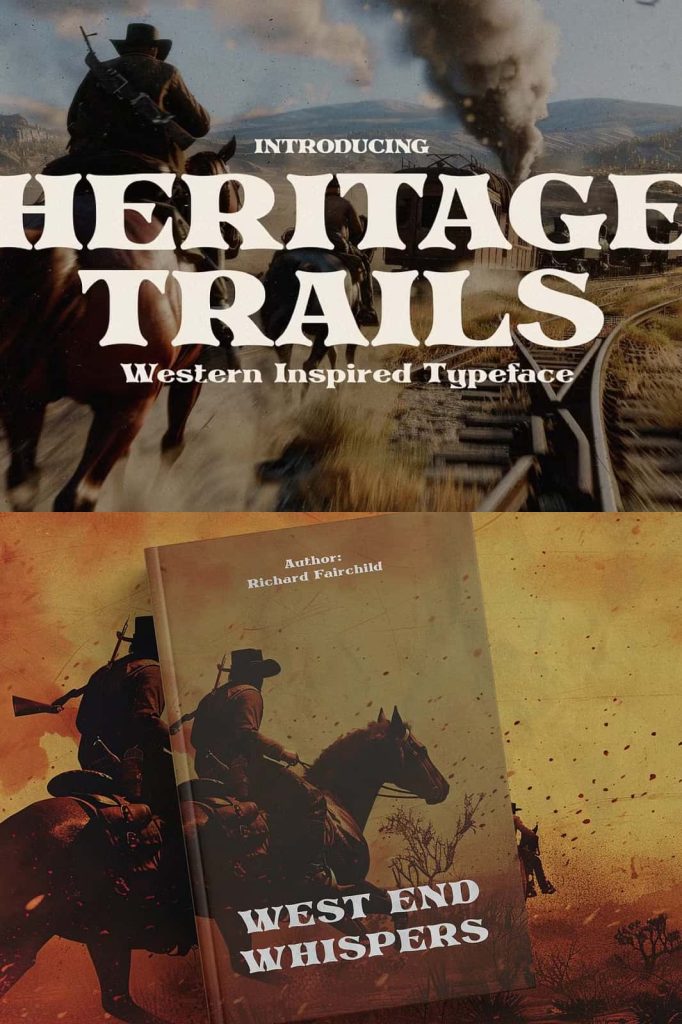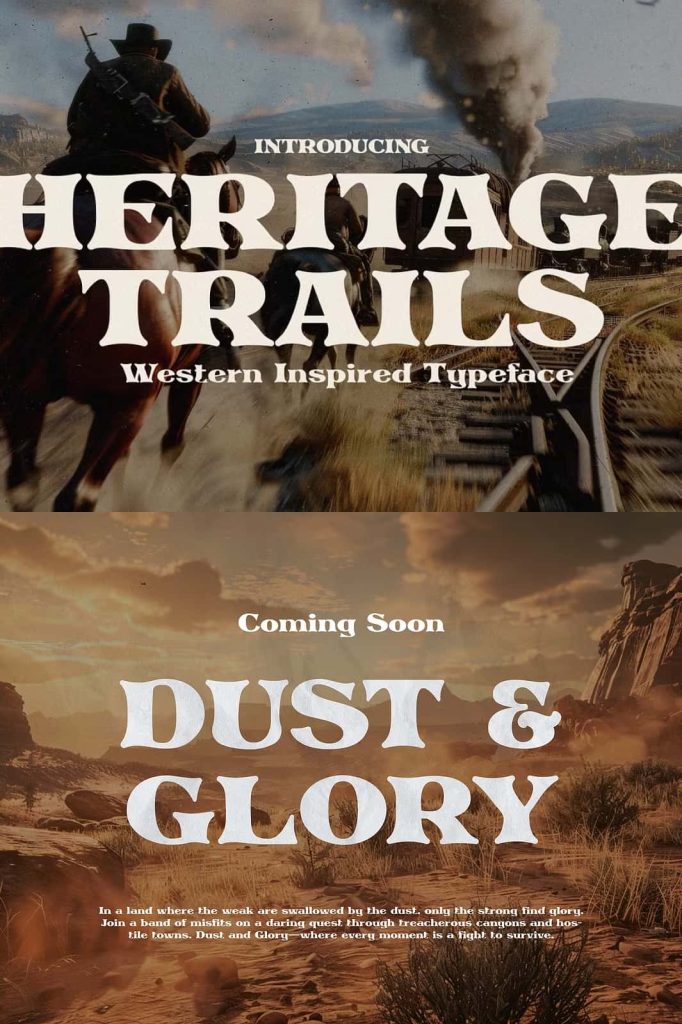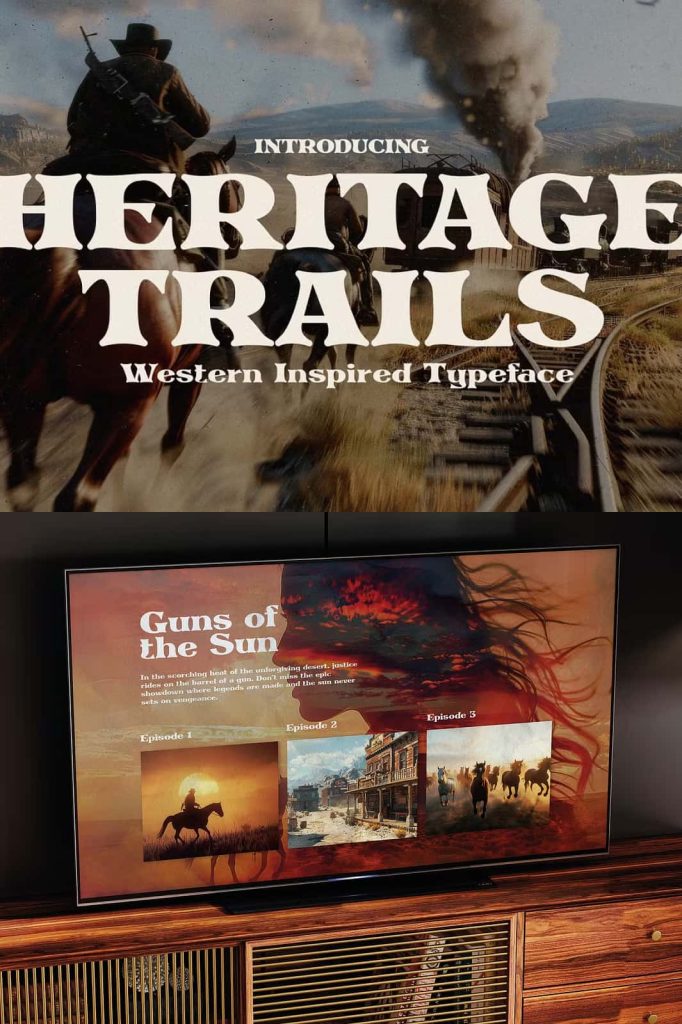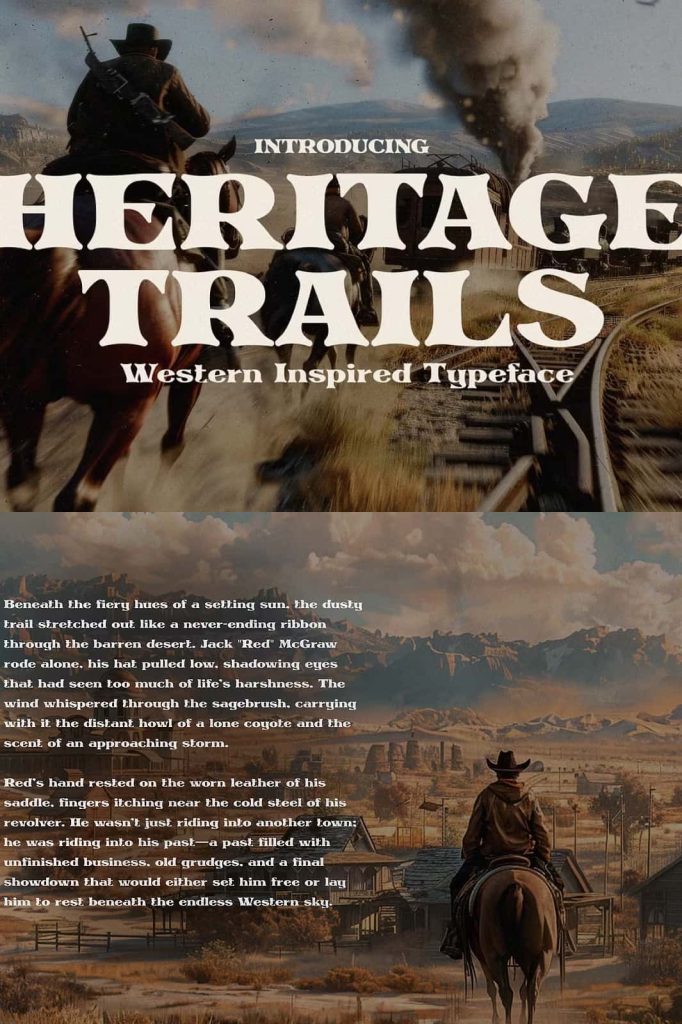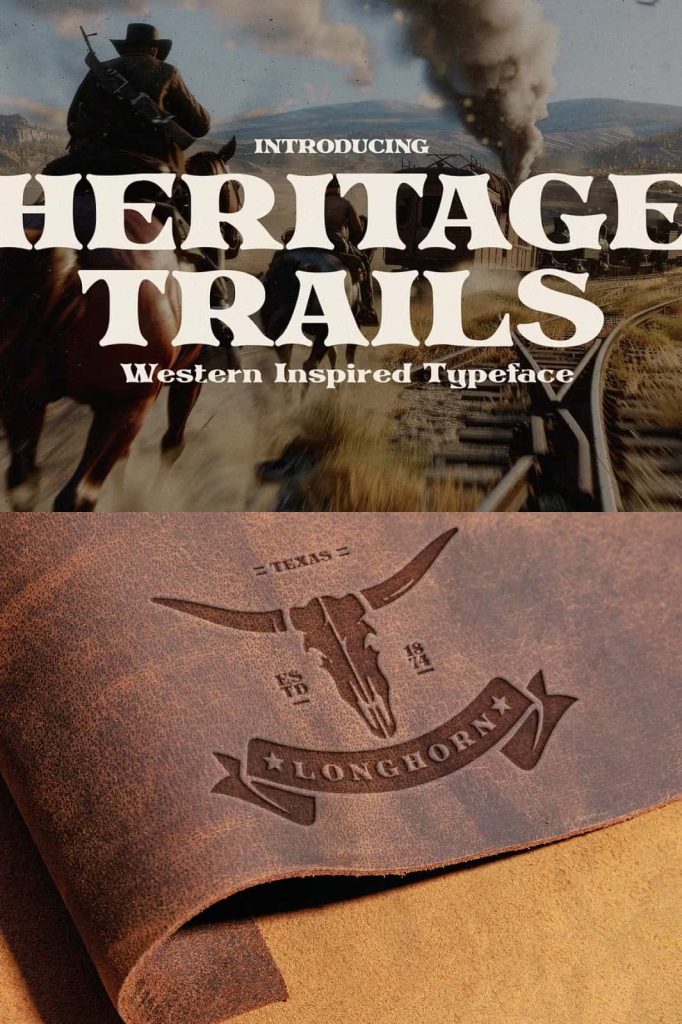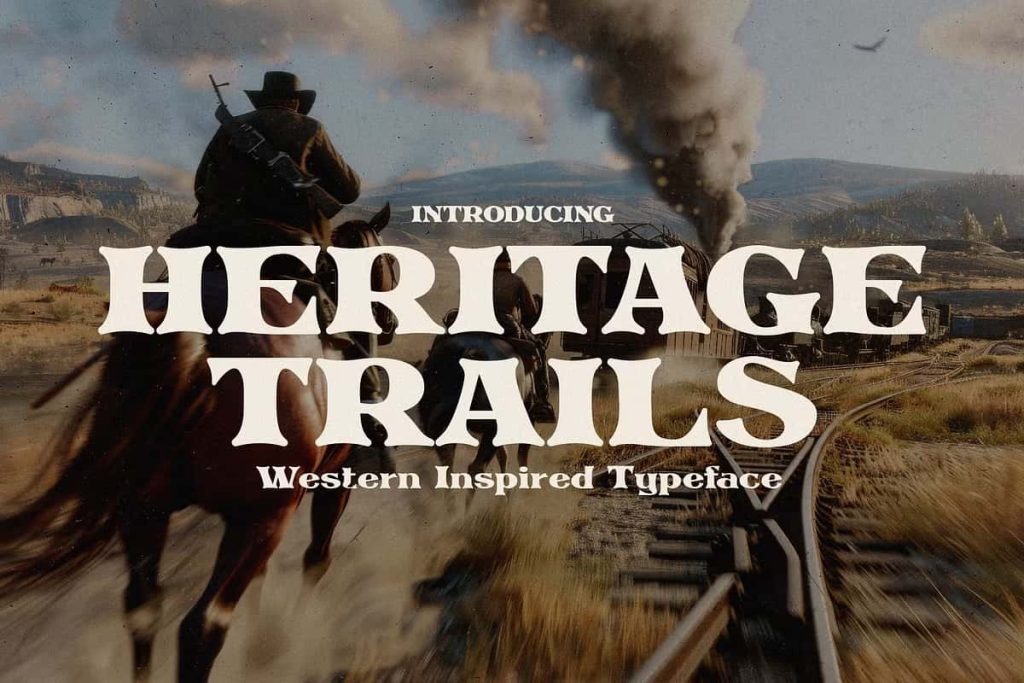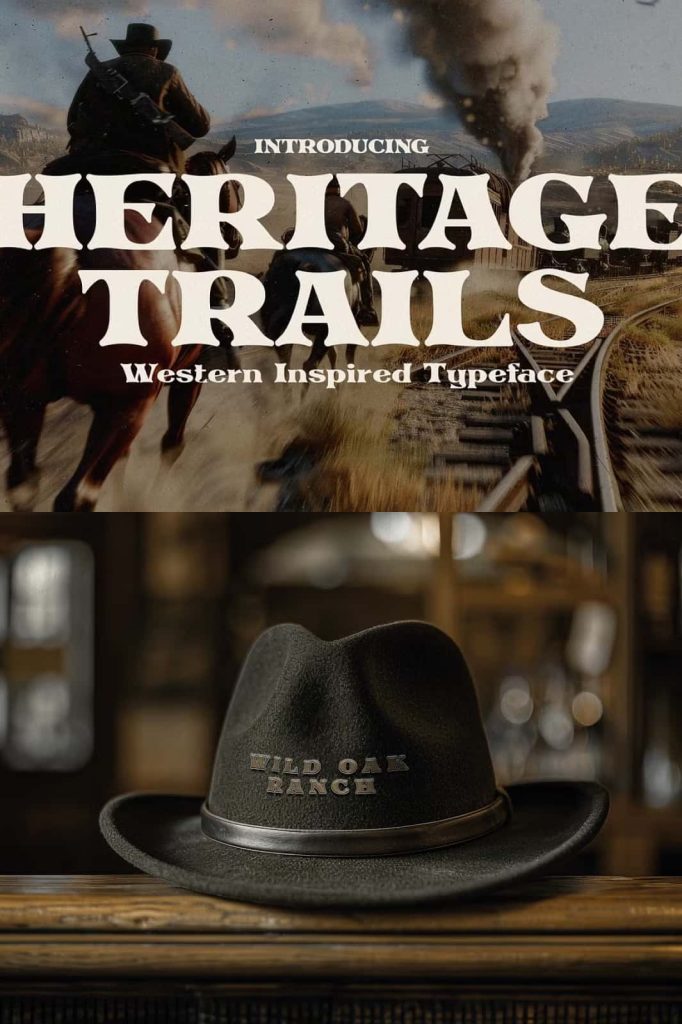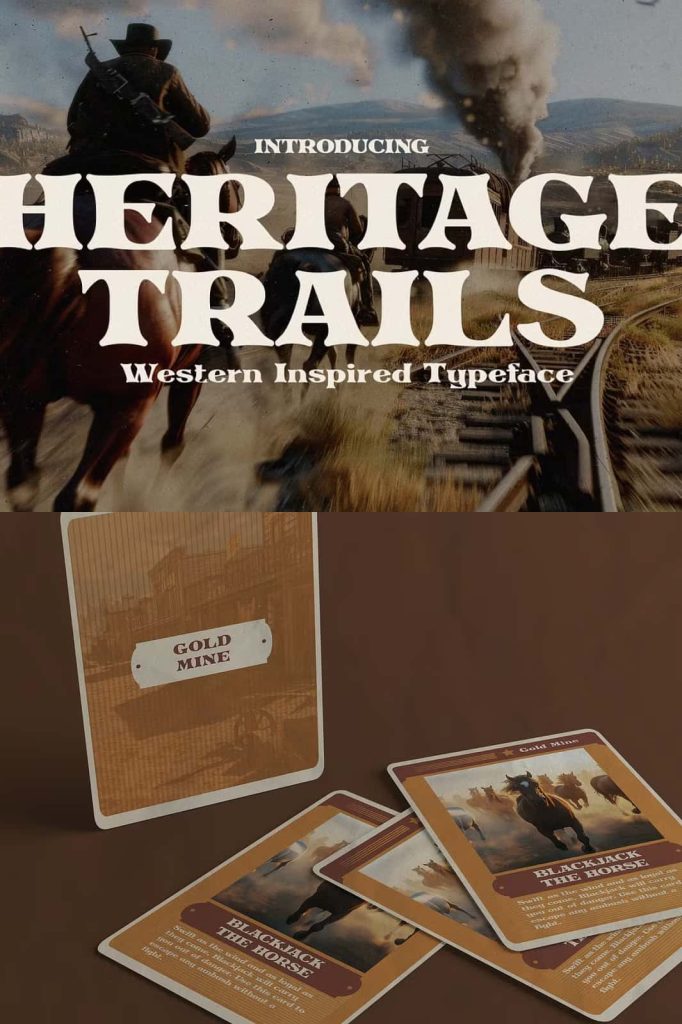
Introducing Heritage Trails, a typeface that transports you back to the untamed heart of the Wild West. With every curve and line, this hand-drawn font captures the raw, rugged essence of a bygone era, where the frontier was wild, and every trail told a story.